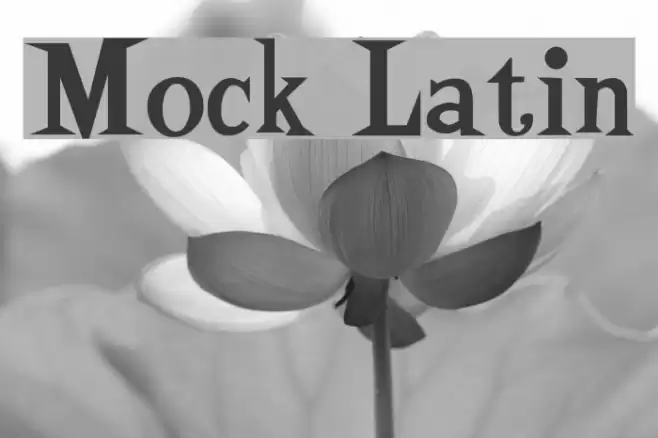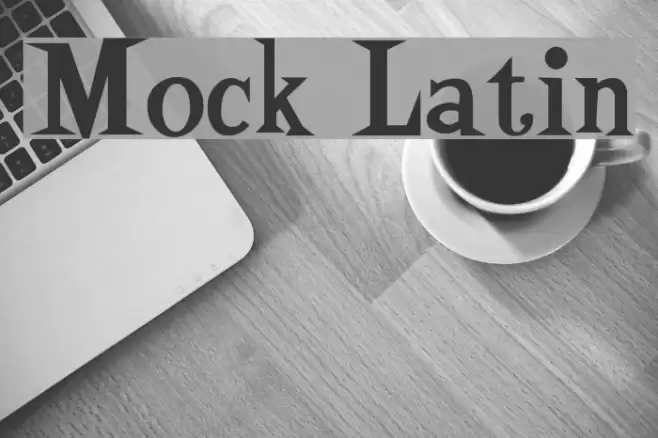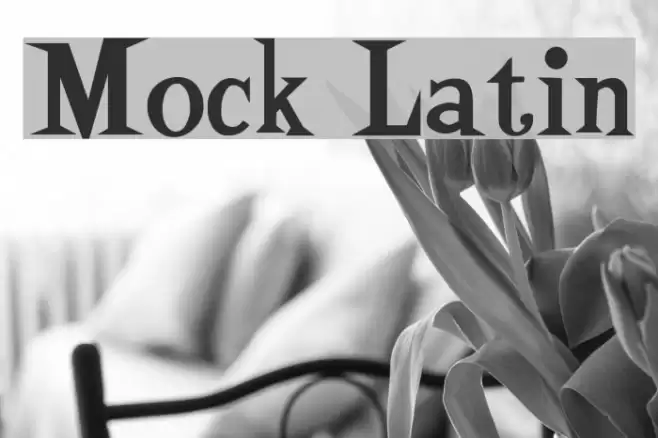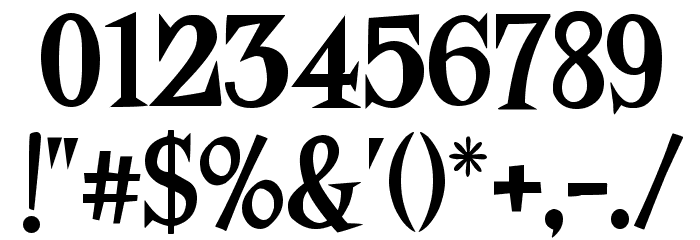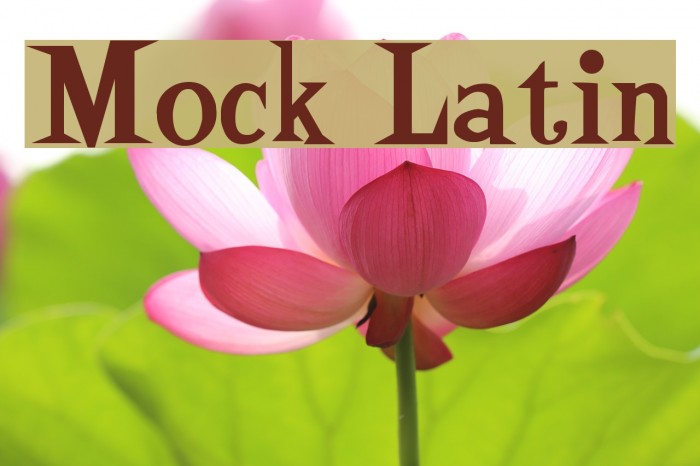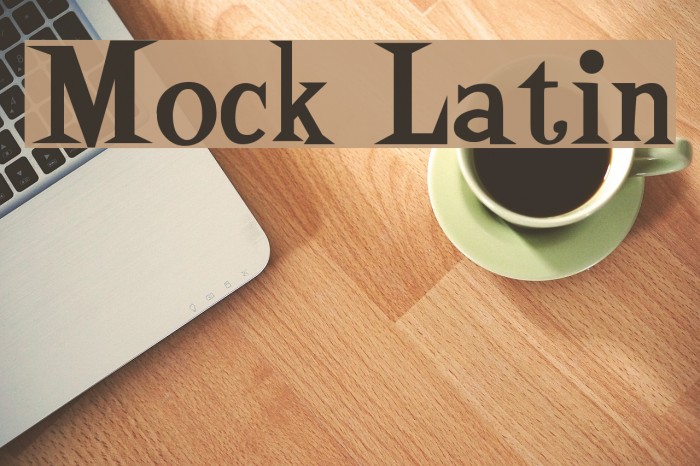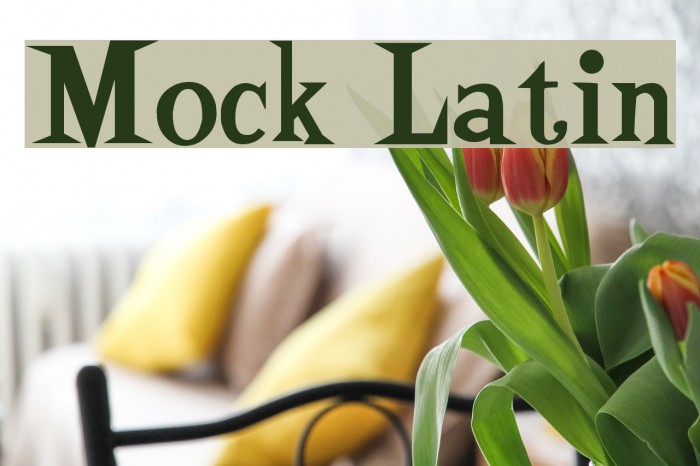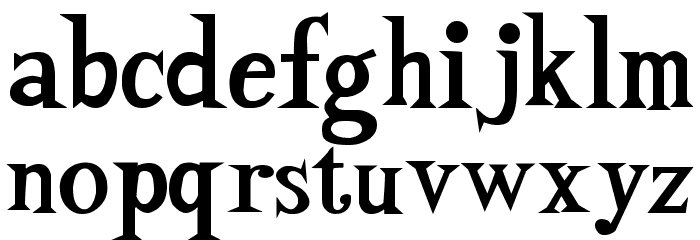
Mock Latin Font
Mock Latin Description
This font features a bold and dramatic style with high contrast between thick and thin strokes, giving it a strong and authoritative presence. The serifs are pronounced and sharp, adding a classic and formal touch to the overall design. The uppercase letters are particularly striking, with a commanding presence that makes them ideal for headlines and titles. The lowercase letters maintain the same level of detail and elegance, ensuring readability while retaining the font's distinctive character. The numbers are equally bold, with a consistent style that matches the letters. Special characters are well-defined and integrate seamlessly with the rest of the font, making it versatile for various uses.
A bold, high-contrast serif font with sharp serifs and a classic style.
- Proposed Projects: Ideal for book covers, posters, branding materials, and editorial design where a strong, classic presence is desired.
- Category: Serif
- Overall Style: Classic
- Use Case: Headlines, Logos, Editorial design